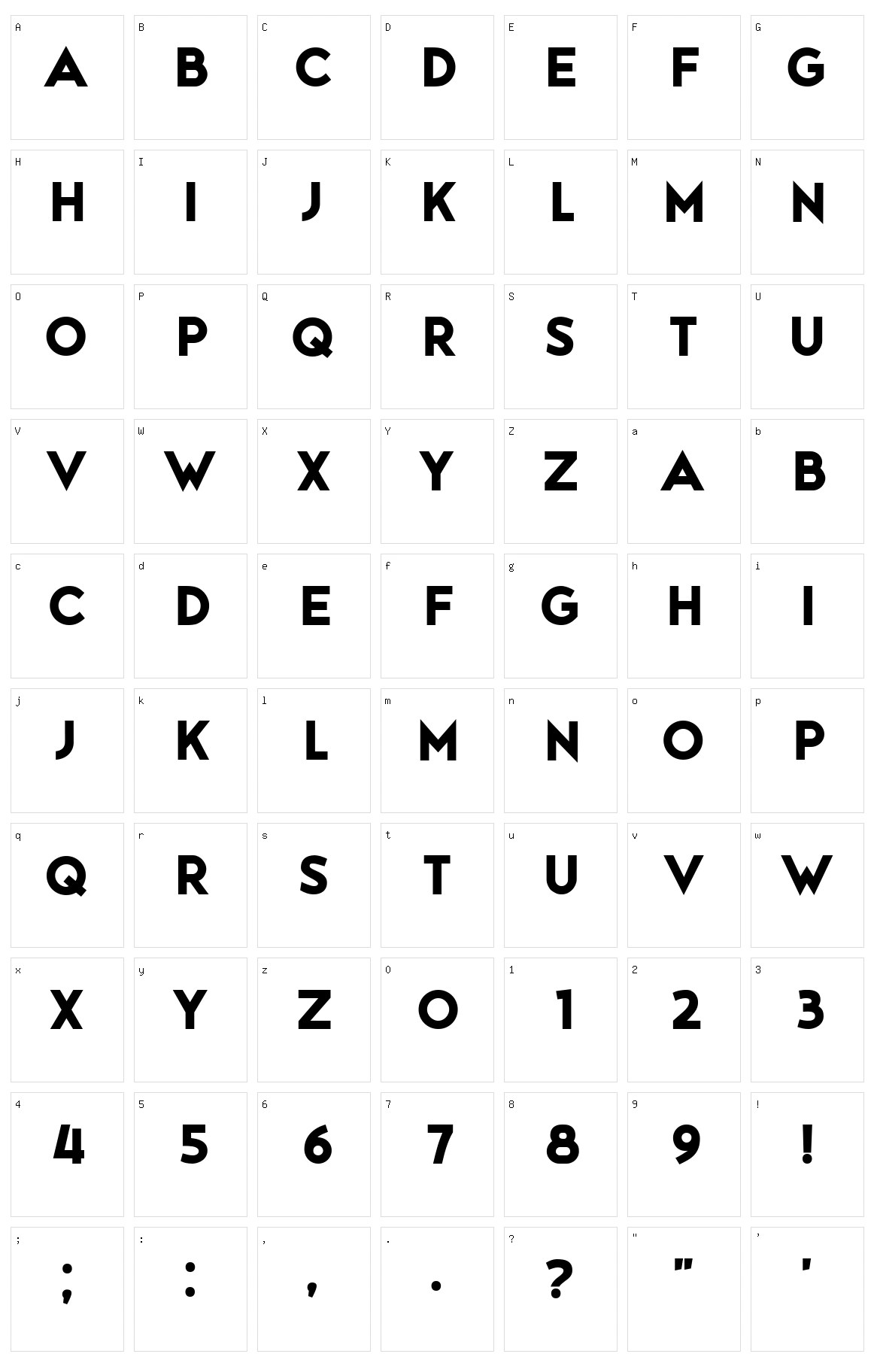
The free font Linzer Augen is carefully designed by Vladimir Nikolic, showcasing a thoughtful balance of creativity and usability and falls under the Sans serif font style. When you download the ZIP file, it contains only 20.9 KB of font files, making it lightweight and quick to download. Please review the license details below to understand permitted usage and distribution rights. If license information is not available, we recommend using this font for personal projects only or contacting the author directly for commercial usage permissions.